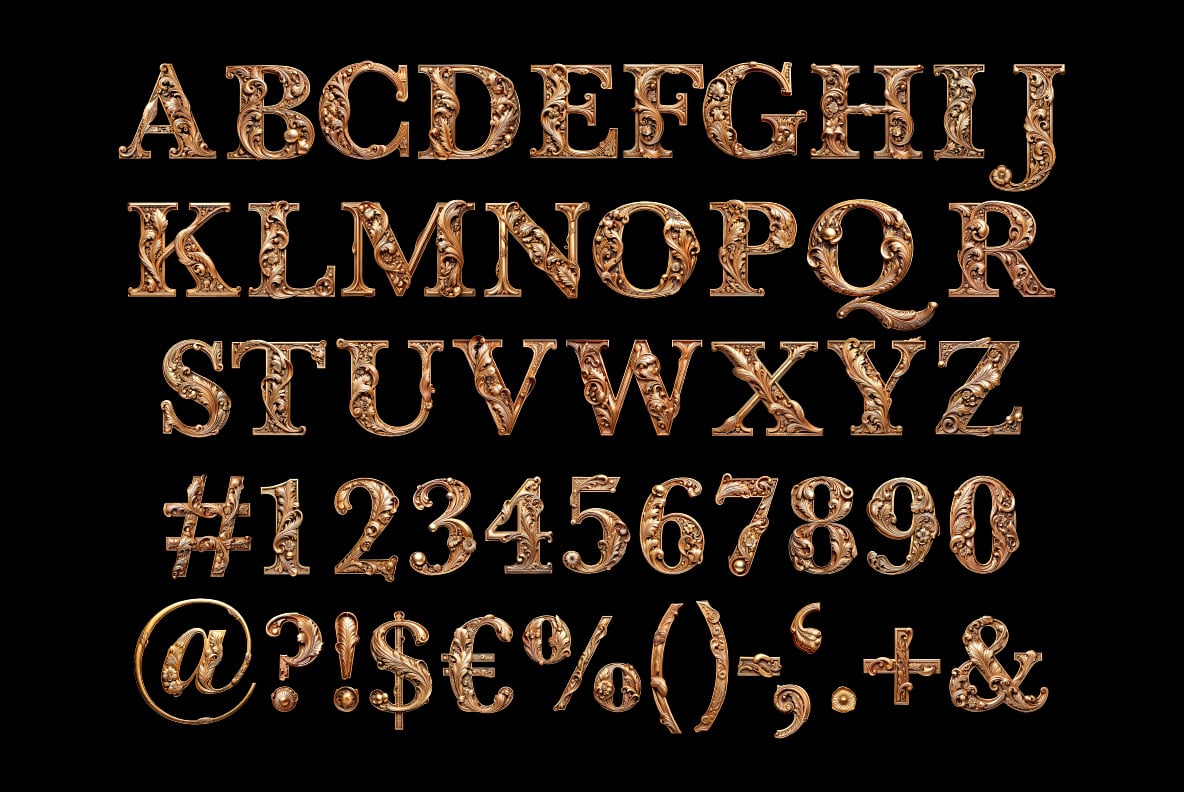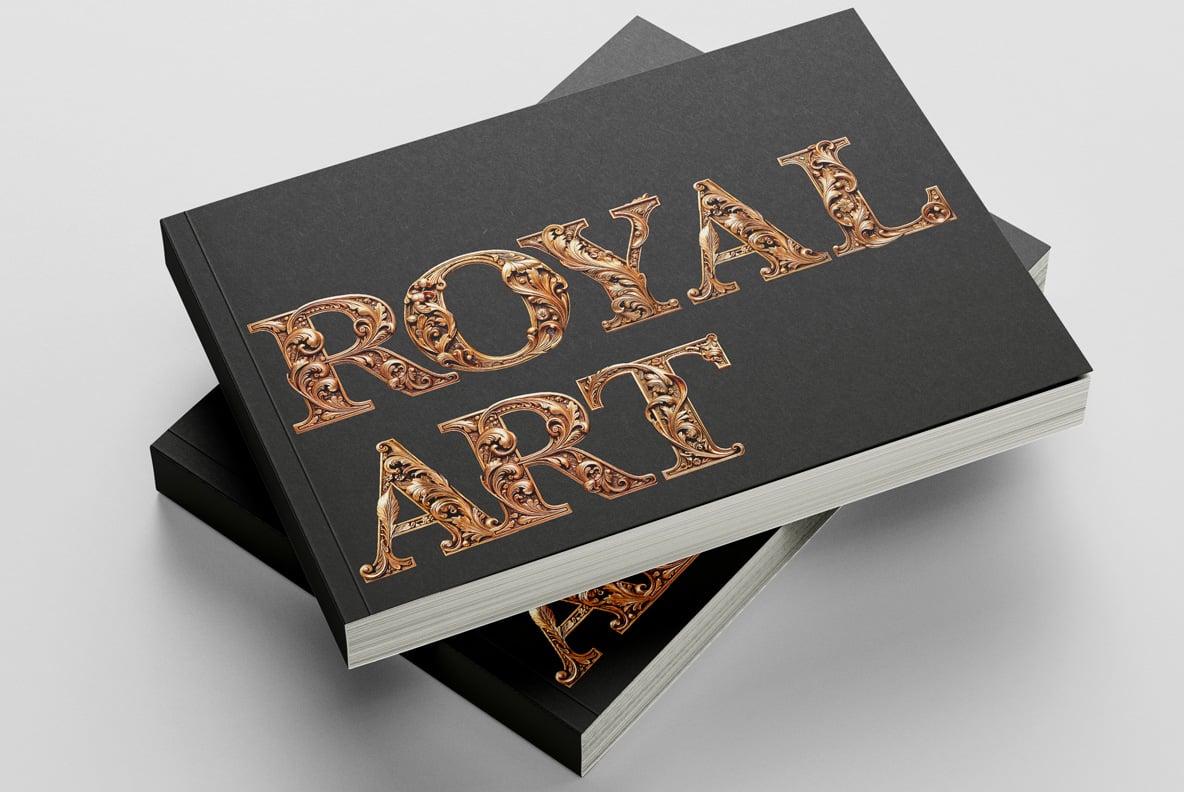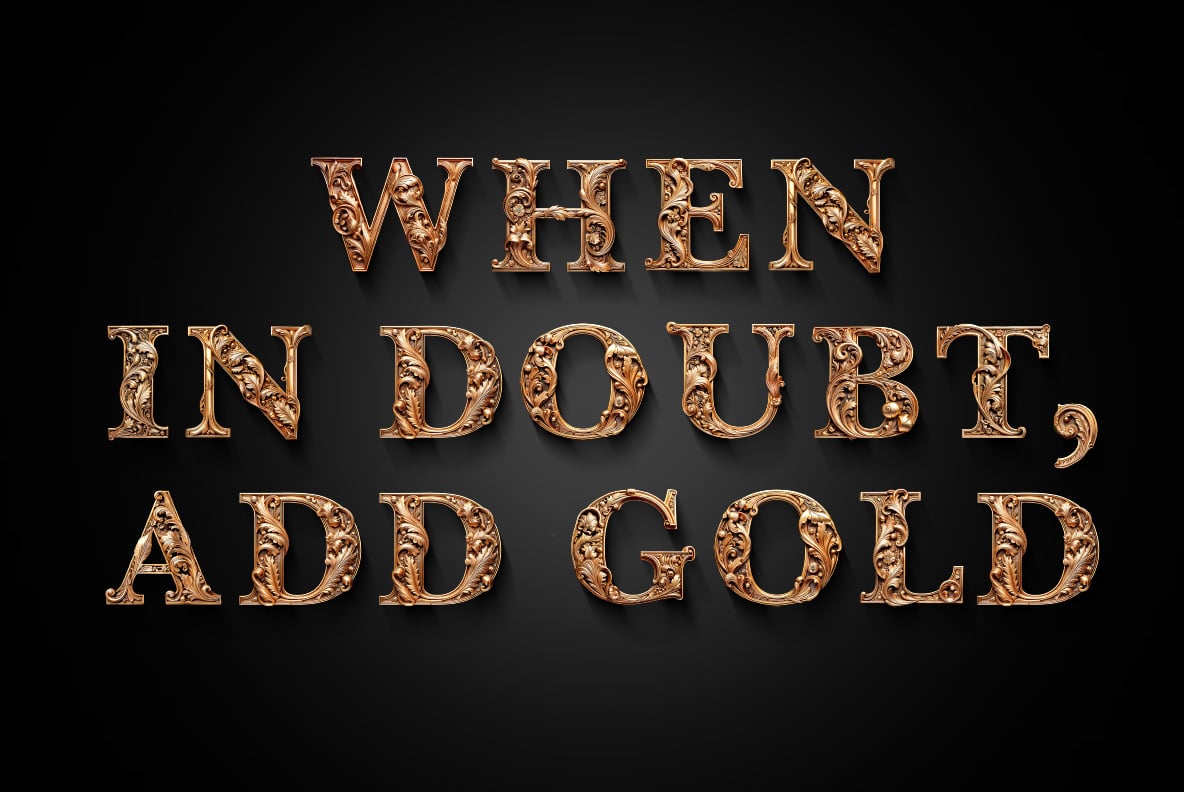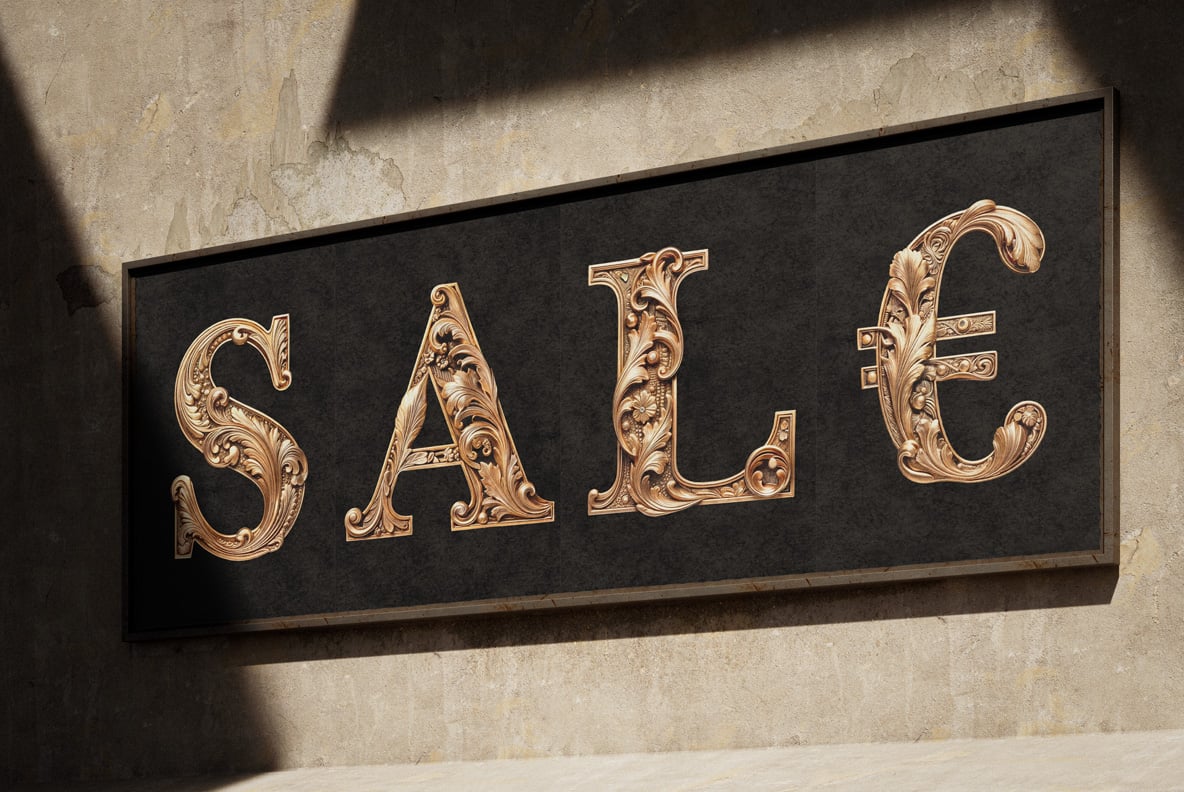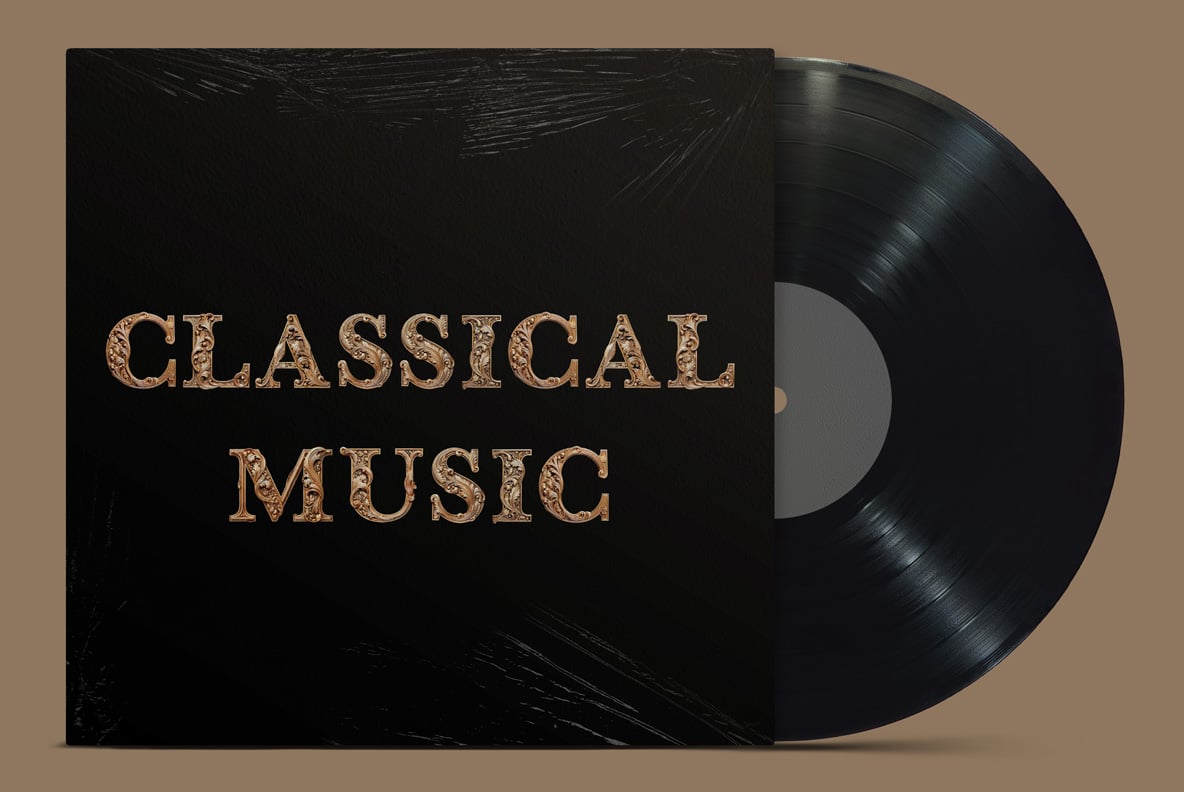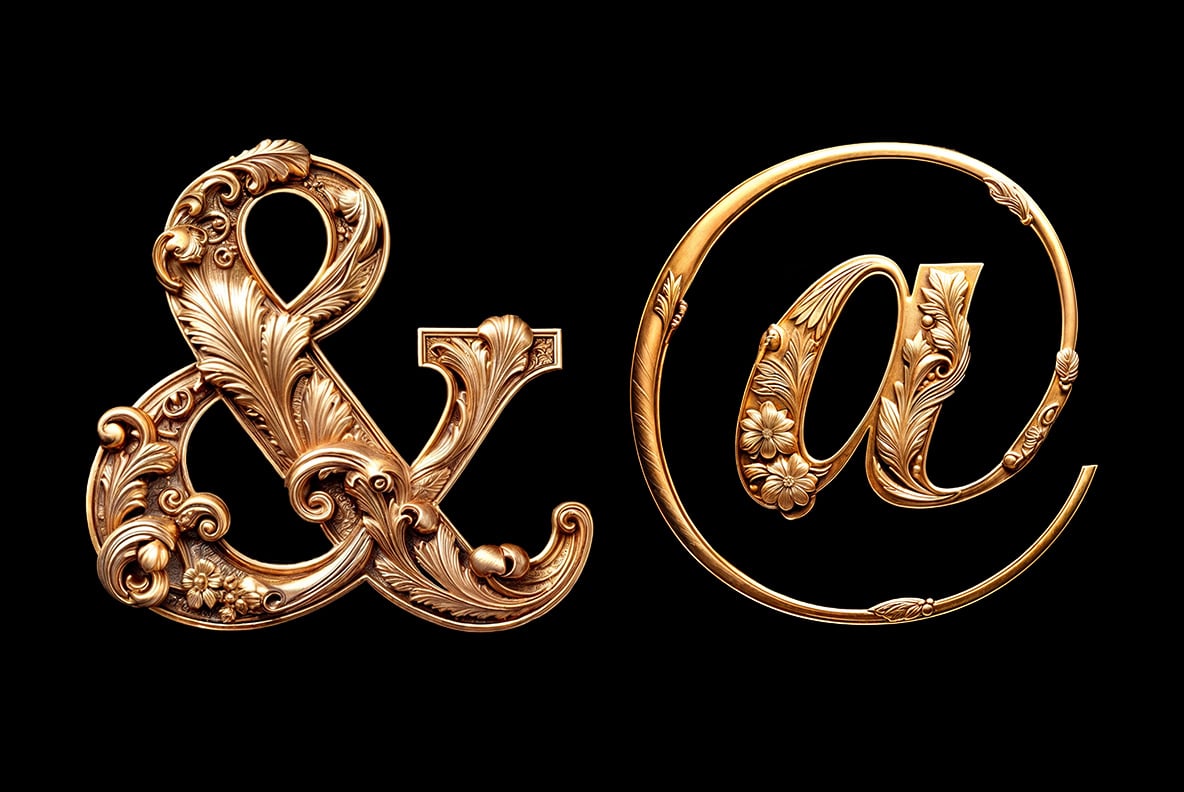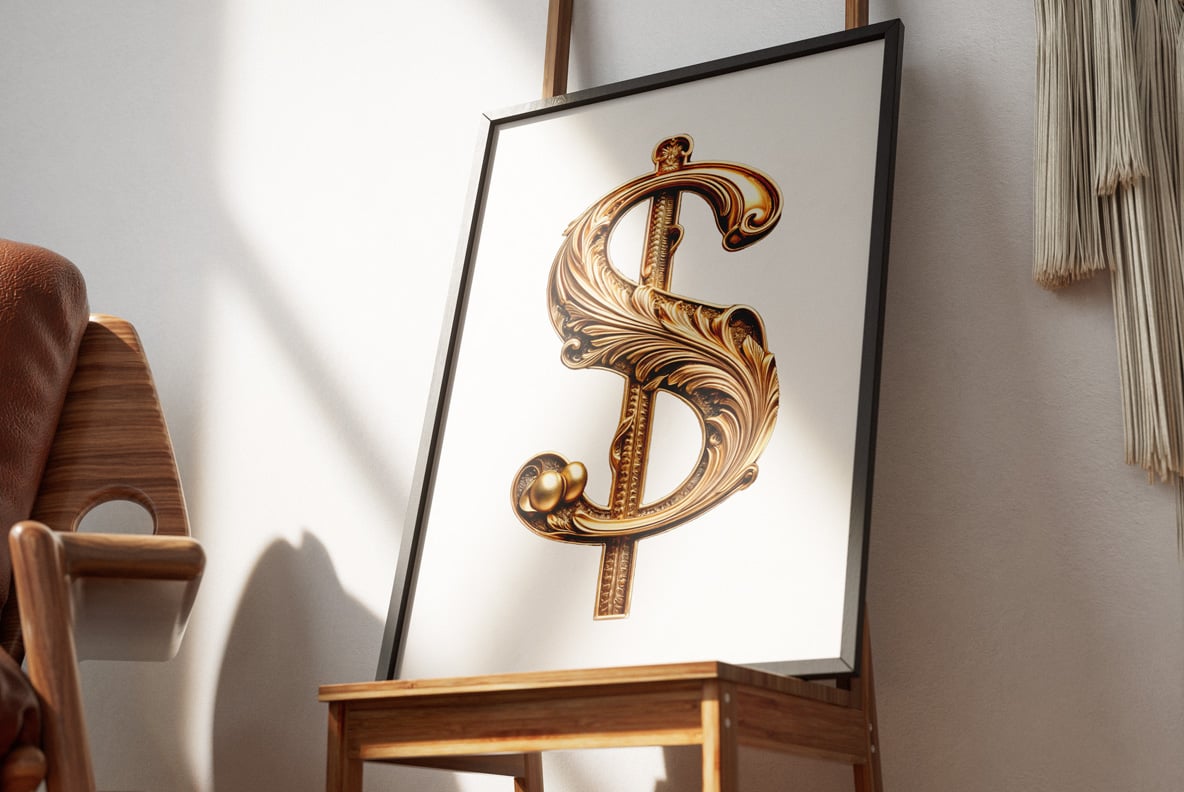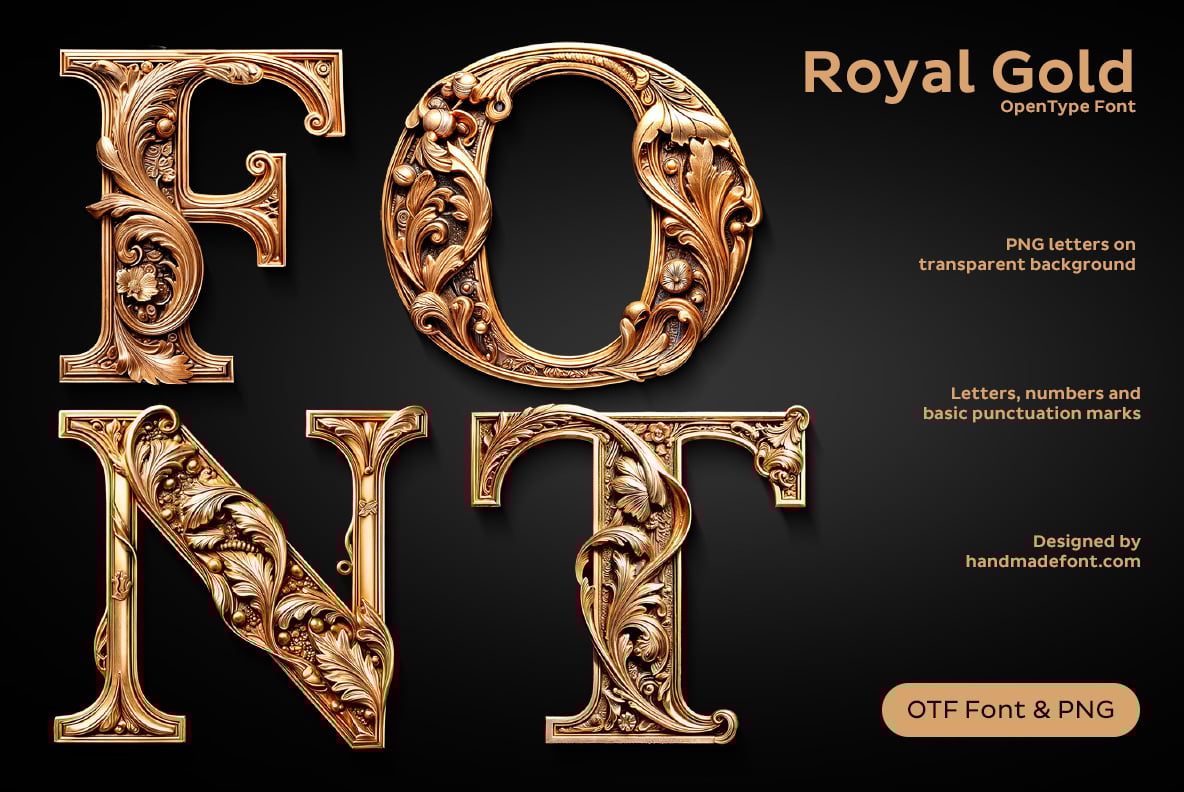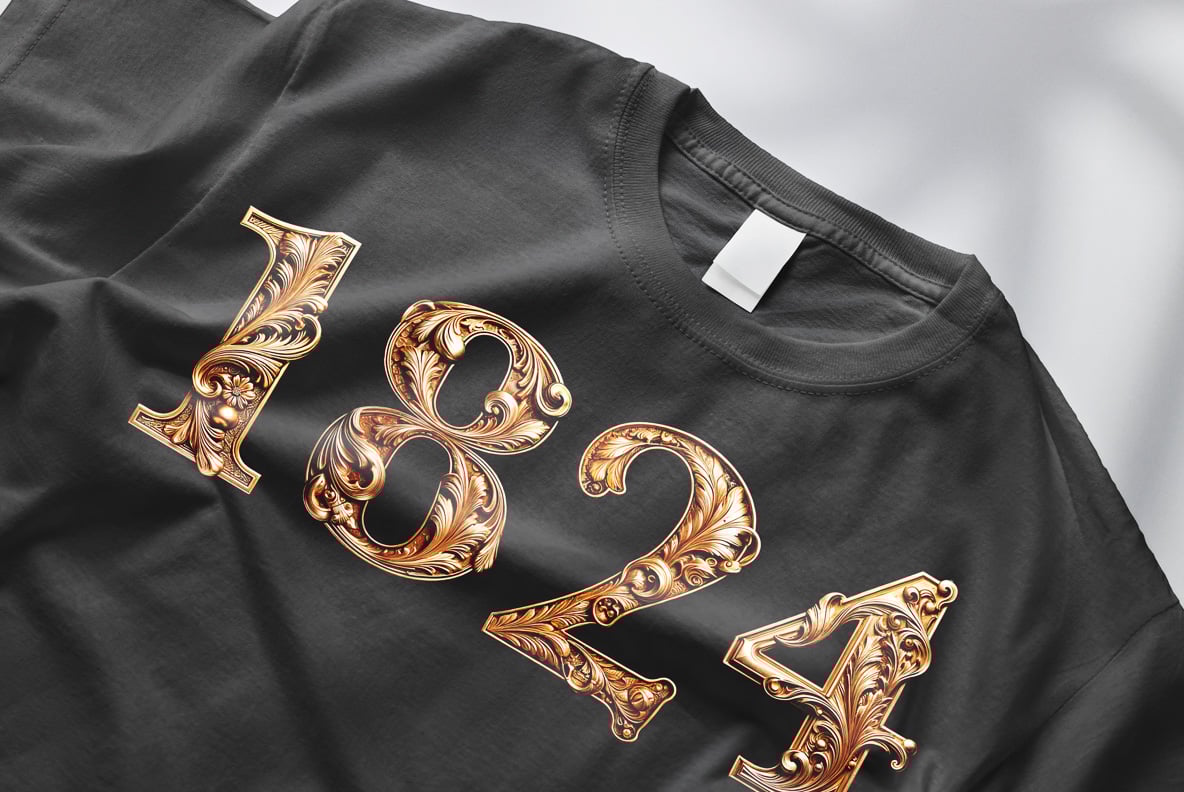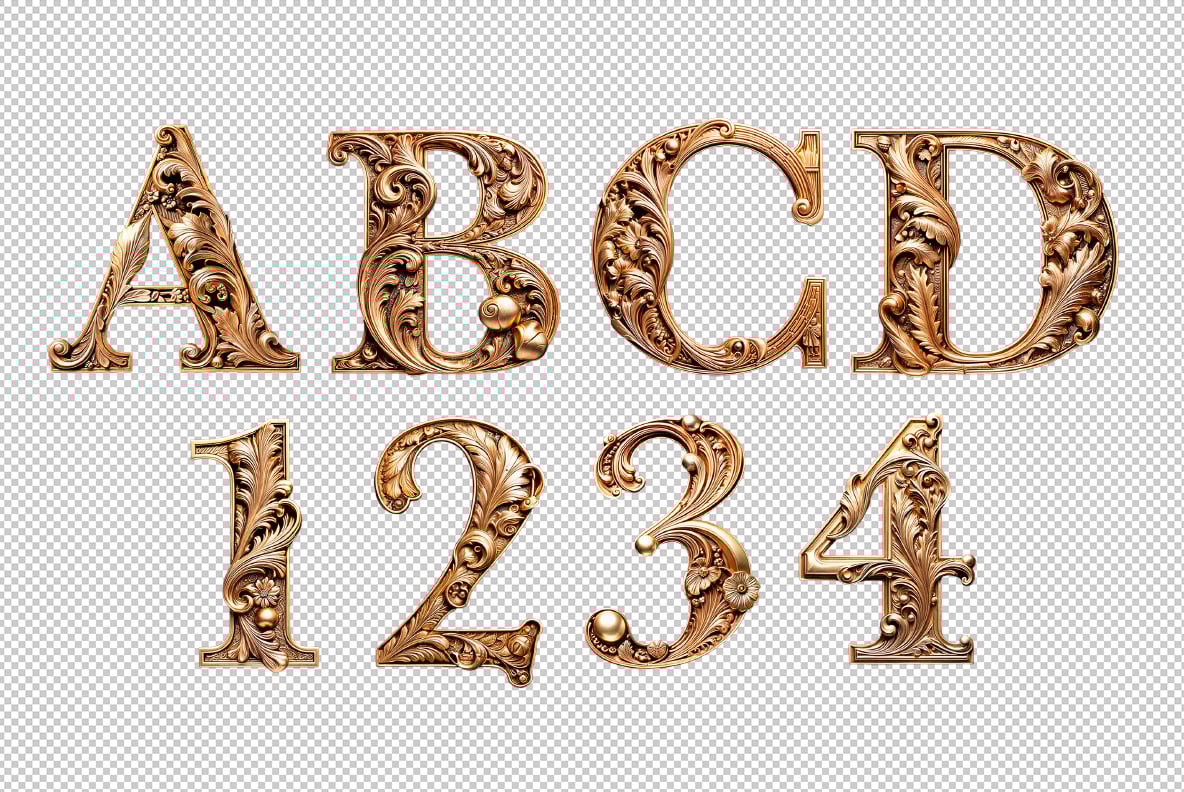
Royal Gold Font
Royal Gold Font isn’t just a typeface—it’s a full-blown golden opera in letterform. Imagine if a baroque palace threw a masquerade ball and every letter showed up dripping in filigree and floral flair. Sculpted like ancient treasure and polished to perfection, this font oozes extravagance, elegance, and just the right amount of drama. It’s the typographic equivalent of wearing a crown to brunch—because why not? Whether you're designing for royalty, rich dreams, or ridiculously fabulous projects, Royal Gold turns every word into a golden proclamation.
A high definition OpenType Font. Contains uppercase characters, numerals and basic punctuation. (Draw height roughly 800 pixels). All letters and glyphs that comprises this font you can see on the preview.